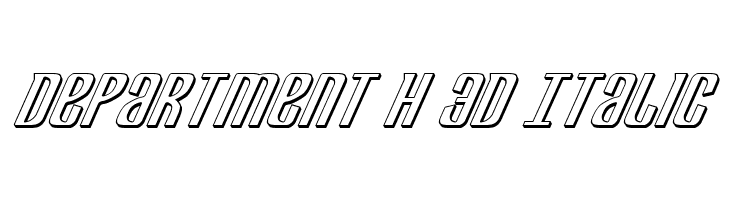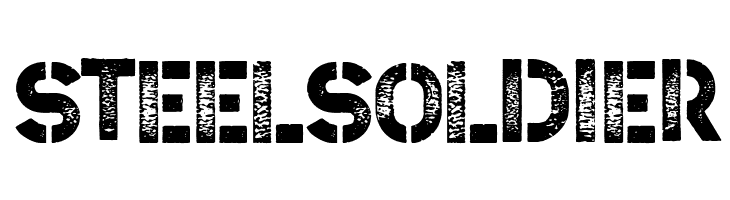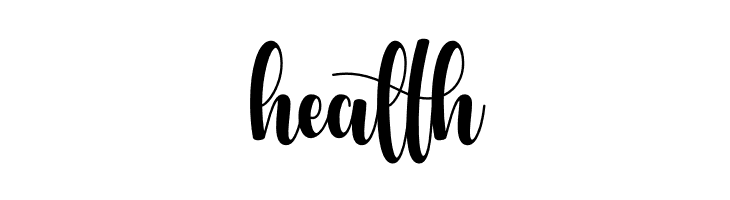
A bold, distressed font with a rugged, industrial aesthetic.
A playful, rounded font with a hand-drawn, casual style.
A playful handwritten font with a casual, whimsical style.
An elegant, flowing script font with a sophisticated and artistic flair.
A bold, brush-style font with dynamic and expressive strokes.
An elegant script font with fluid, flowing strokes and graceful curves.
Bold, chunky font with rounded edges and a playful style.
A bold, hollow font with a modern, three-dimensional style.
A bold, angular, and condensed italic font with a futuristic design.
Casual handwritten script font.